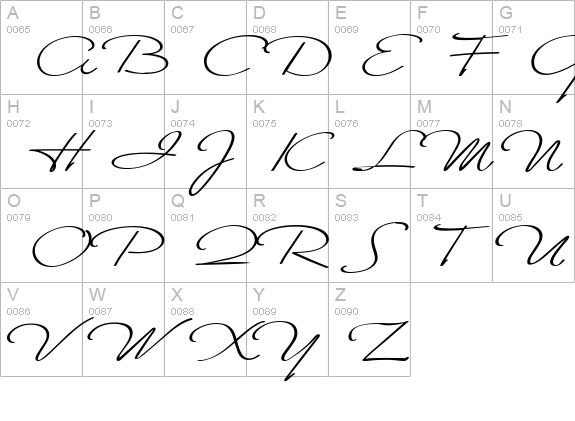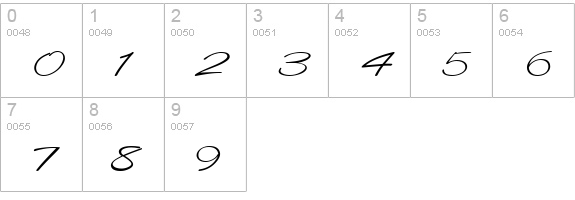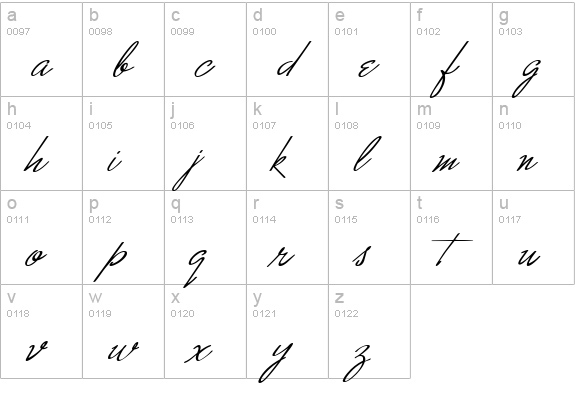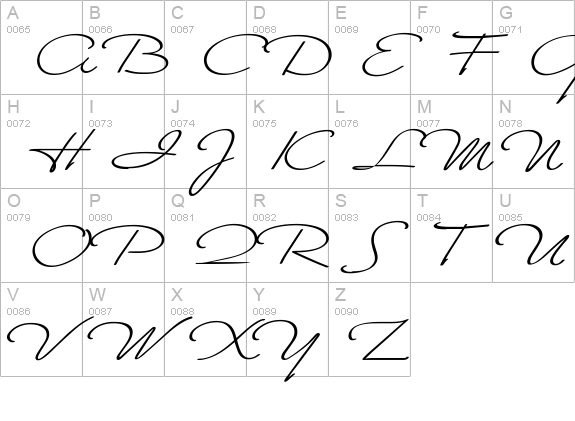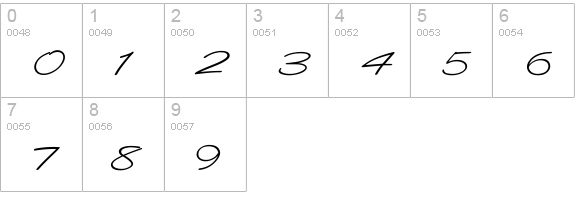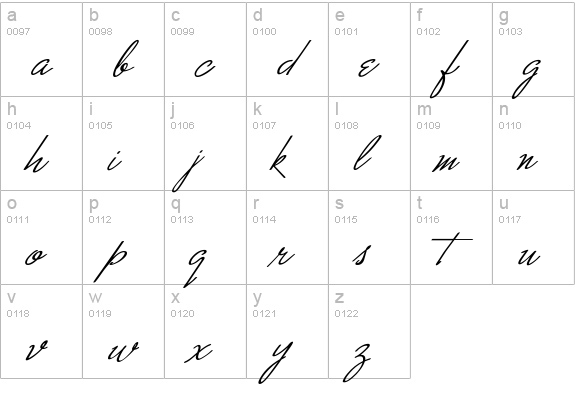
Monika Italic Font Details
Monika Italic is a distinctive, italic variant in the Monika typeface family \xE2\x80\x94 well suited to design and typography projects.
Monika Italic font is a sleek and modern typeface that exudes elegance and sophistication. Its slanted design adds a touch of flair to any project, making it perfect for stylish branding, editorial design, and more. The slender letterforms of Monika Italic font flow gracefully, creating a sense of movement and dynamism on the page. What sets Monika Italic font apart is its versatility - it can be used for both headings and body text, maintaining readability while adding a touch of personality. Whether you're working on a fashion magazine, luxury brand, or sleek website, Monika Italic font will elevate your design to the next level. Best of all, Monika Italic font is completely free to download at FontsMarket.com. This means you can add this stunning typeface to your font library without breaking the bank. Don't miss out on this opportunity to enhance your designs with the elegant and stylish Monika Italic font.